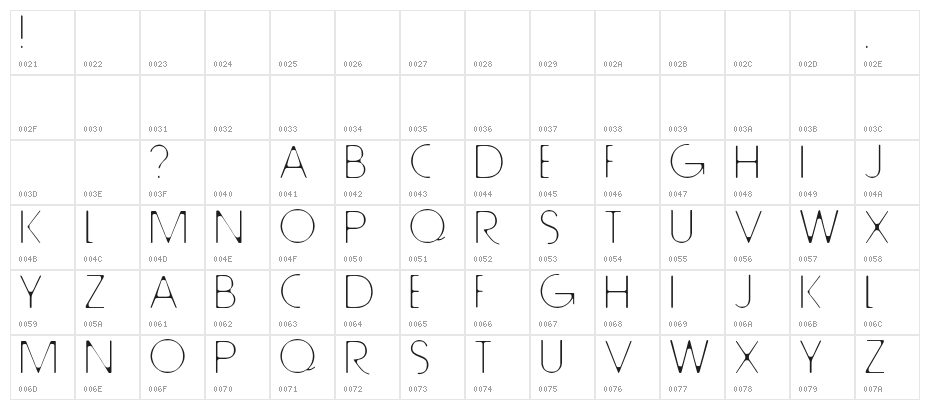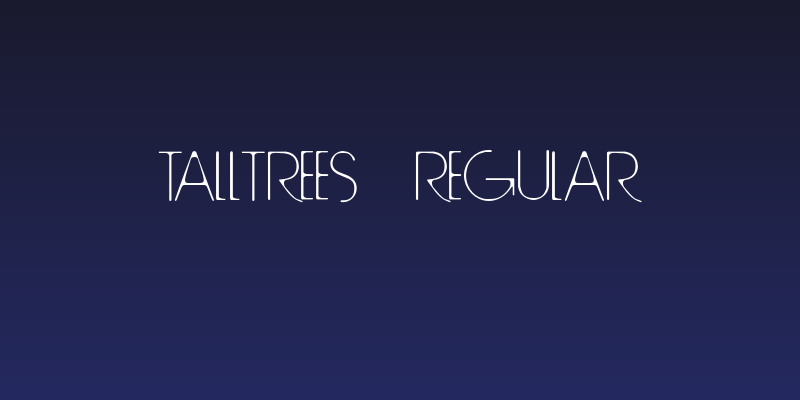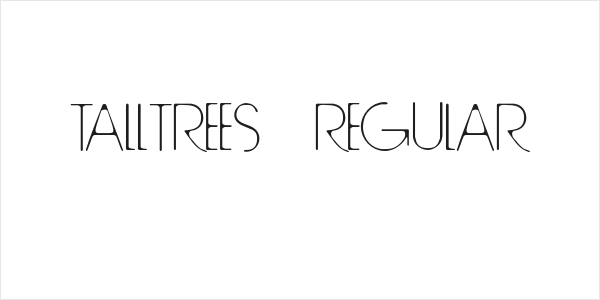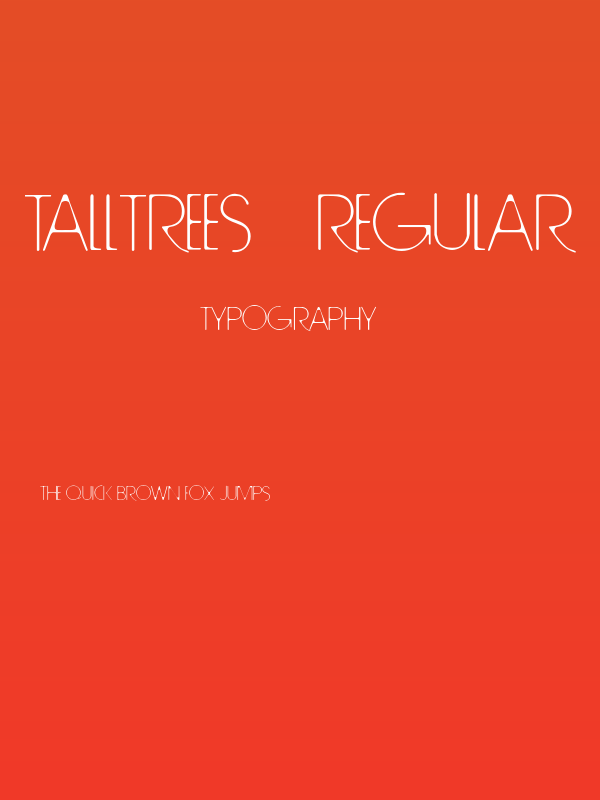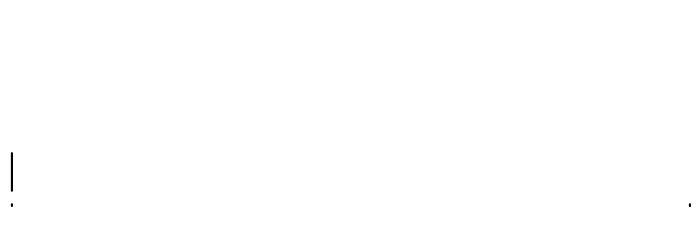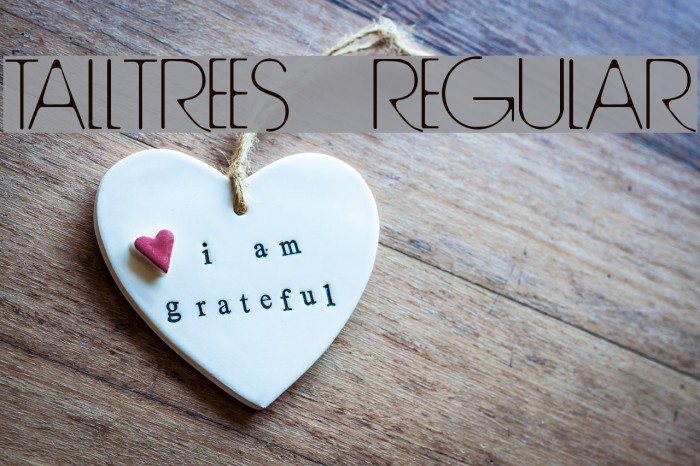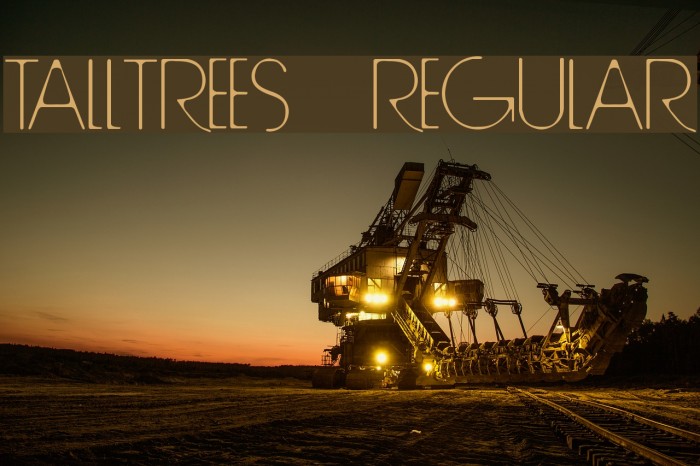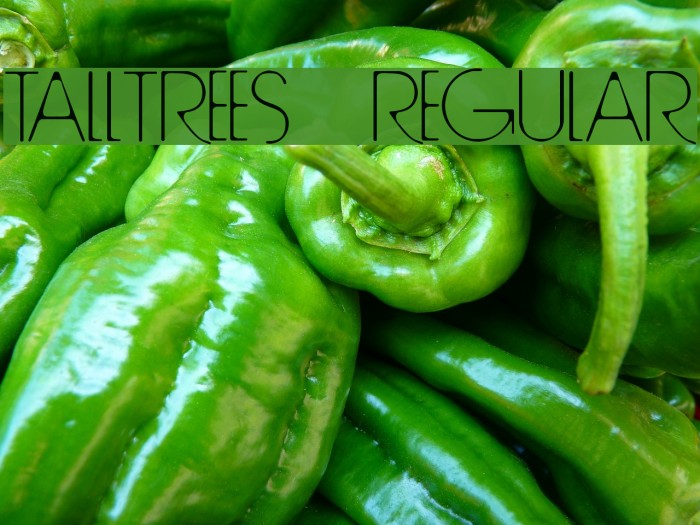
TallTrees-Regular Font
TallTrees-Regular Description
This font features a modern and elegant design with tall, slender characters. The uppercase letters are characterized by their elongated forms and minimalistic style, creating a sense of sophistication and clarity. The strokes are consistent in width, giving the font a clean and uniform appearance. The absence of lowercase letters and numbers suggests a focus on decorative or headline use. The font's geometric shapes and sharp angles contribute to its contemporary aesthetic, making it suitable for projects that require a sleek and stylish look.
| Proposed Projects | Ideal for use in branding, logos, headlines, and editorial design where a modern and sophisticated look is desired. |